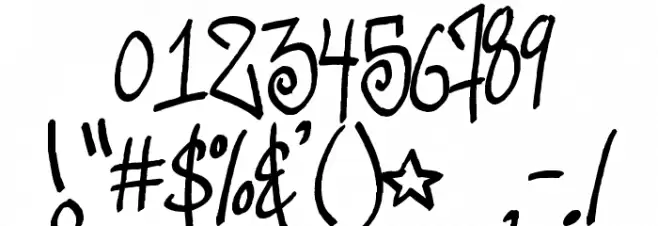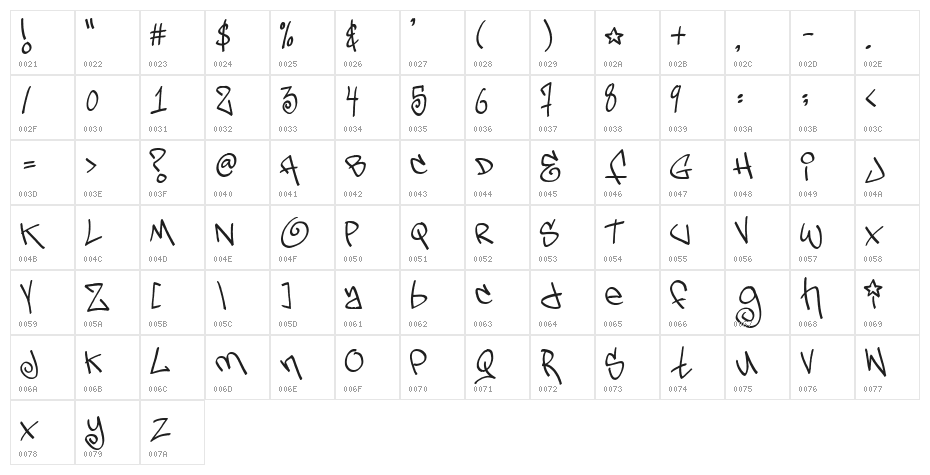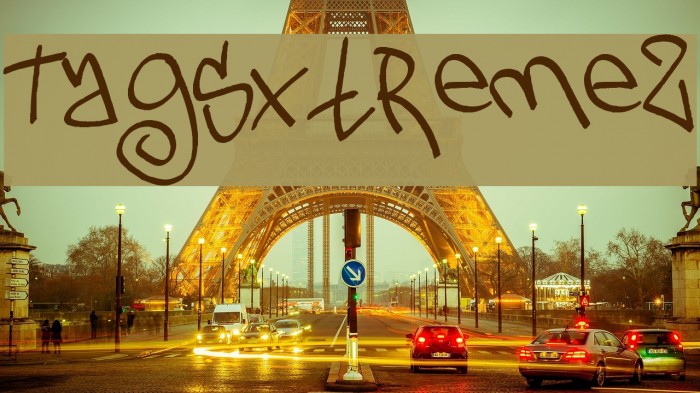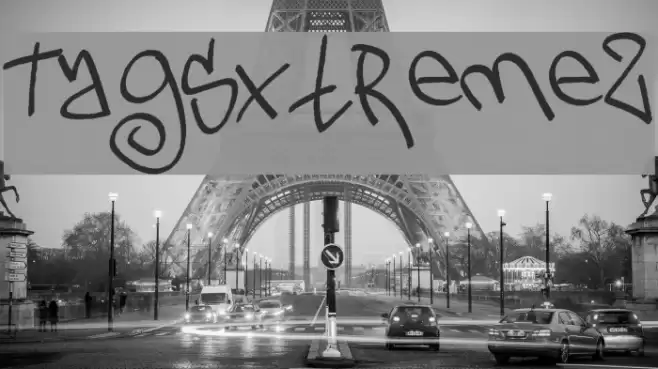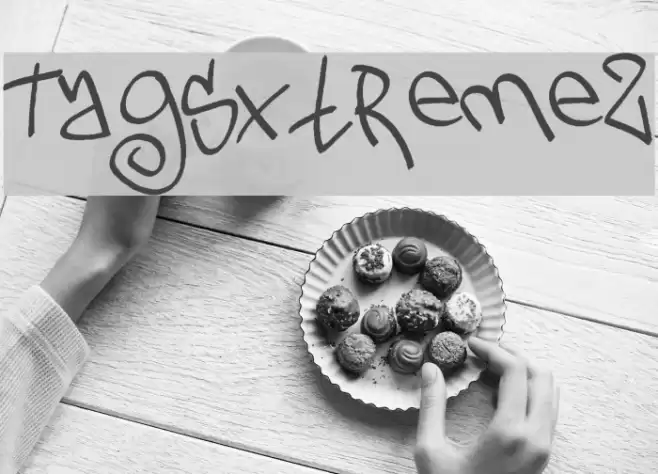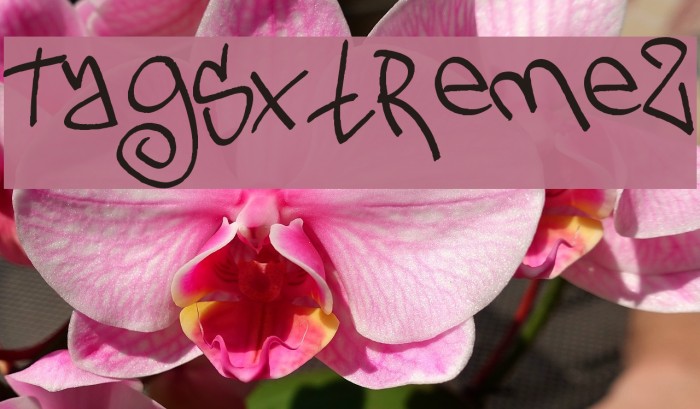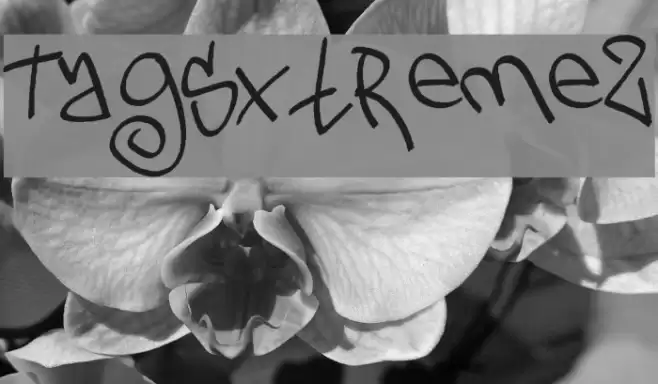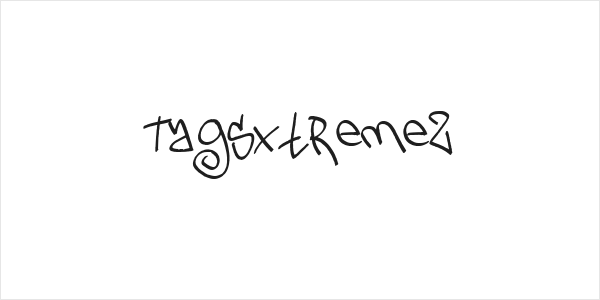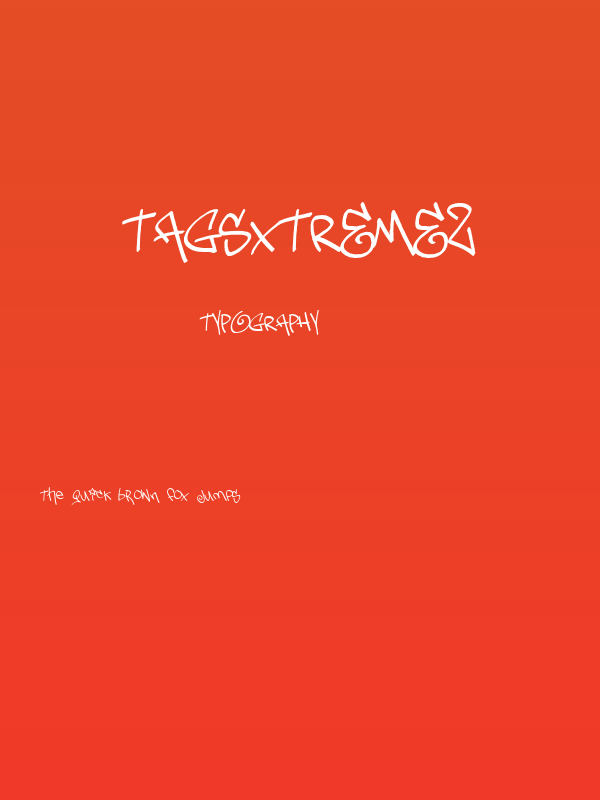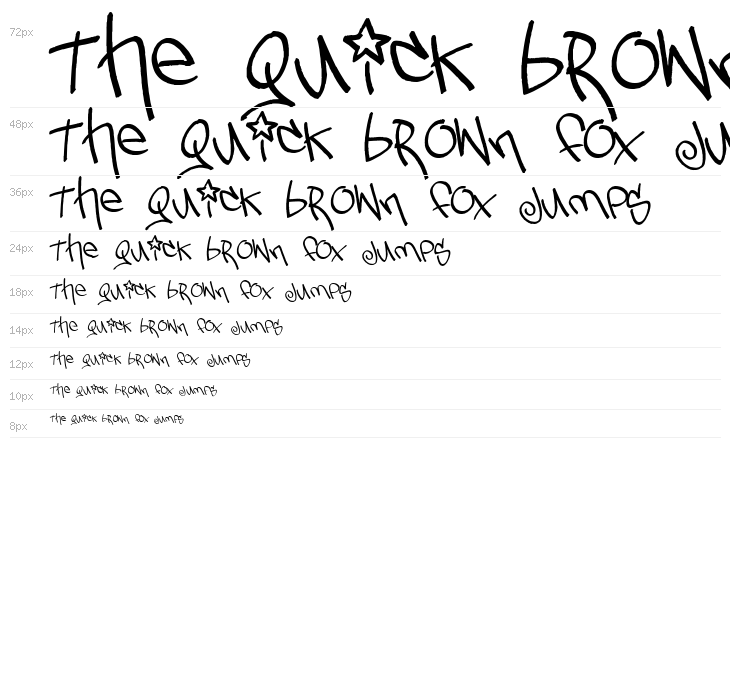
TagsXtreme2 Font
TagsXtreme2 Description
This font features a bold, graffiti-inspired style with a playful and energetic vibe. The characters are hand-drawn with a casual, freeform appearance, characterized by exaggerated loops and curves. The uppercase and lowercase letters maintain a consistent, whimsical aesthetic, while the numbers and special characters add to the overall dynamic feel. The font's unique style makes it stand out, with a youthful and rebellious edge that is perfect for creative and unconventional projects.
| Overall Style | Modern, Urban |
| Use Case | Logos, Posters, Creative Branding |
| Proposed Projects | Ideal for street art designs, music album covers, urban-themed posters, and creative branding projects. |